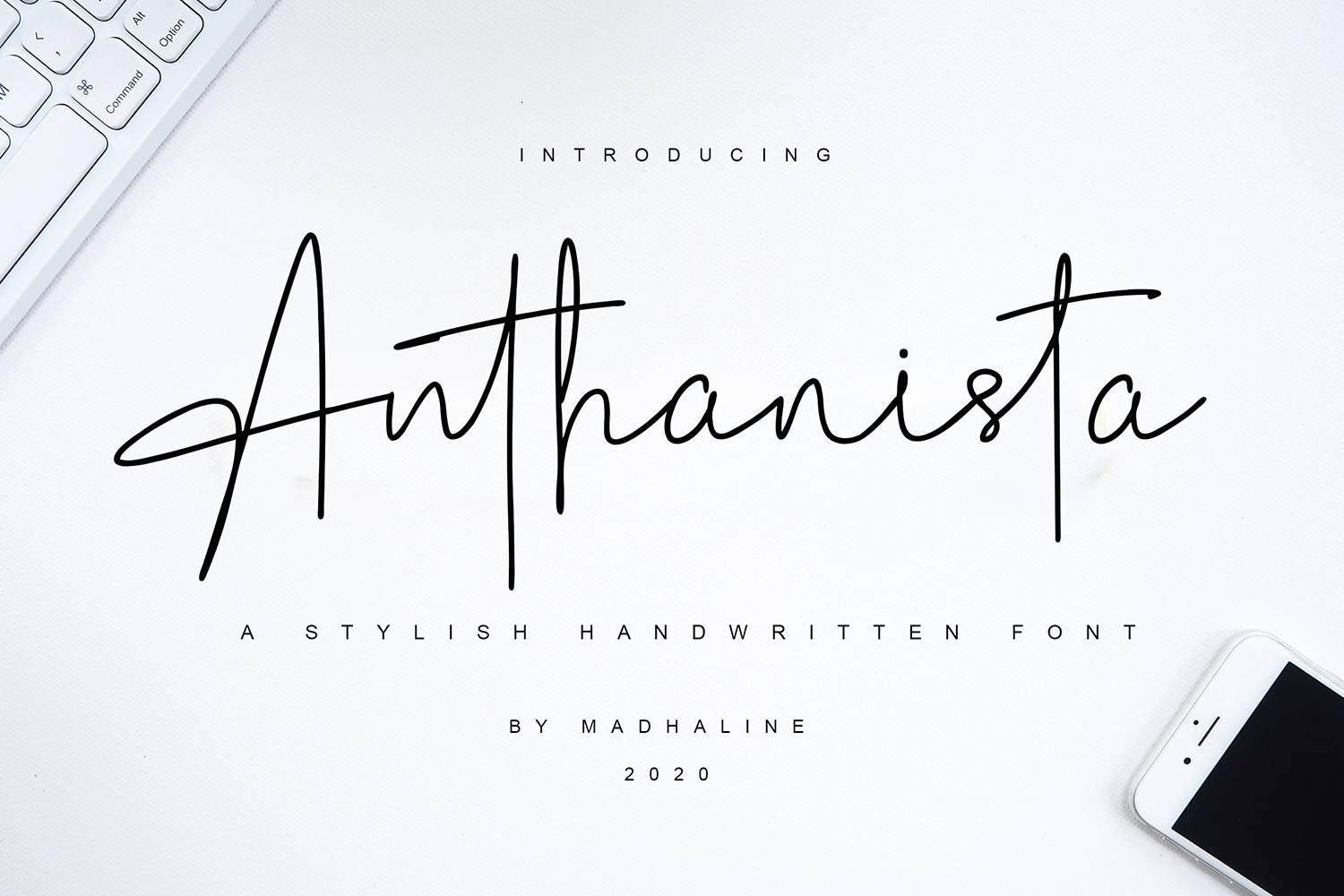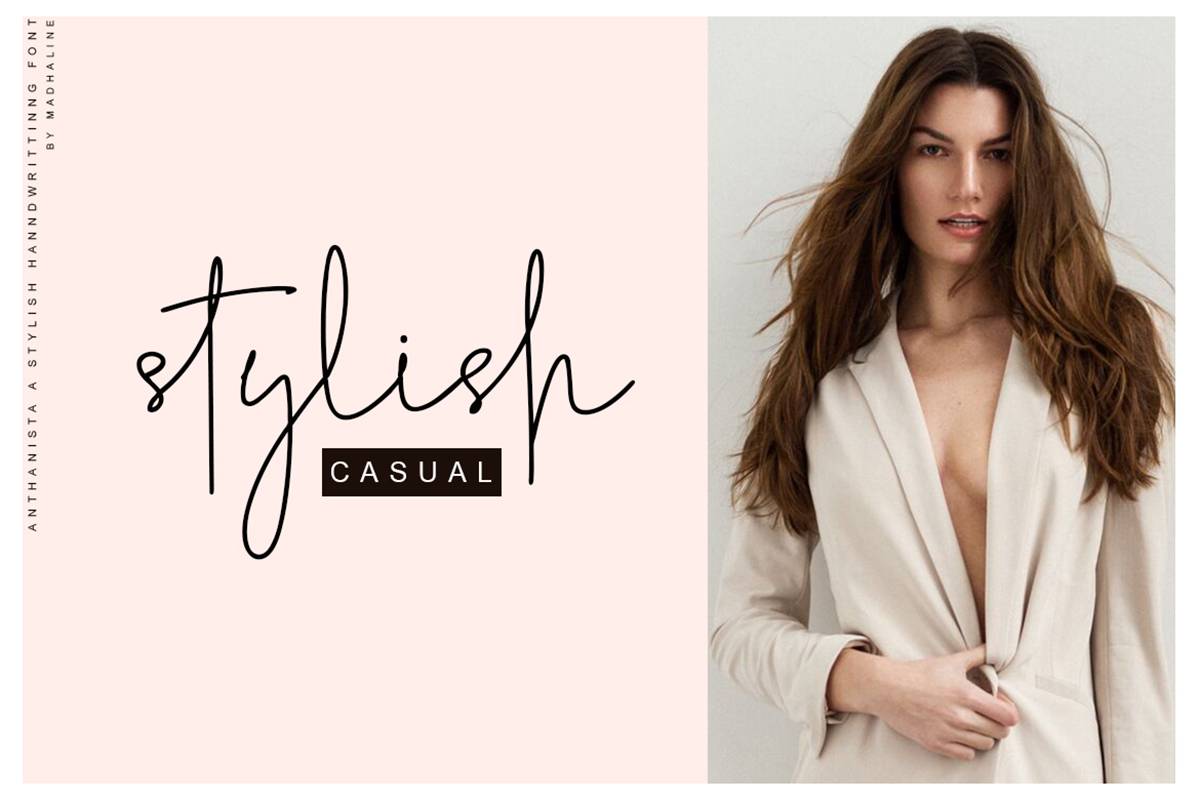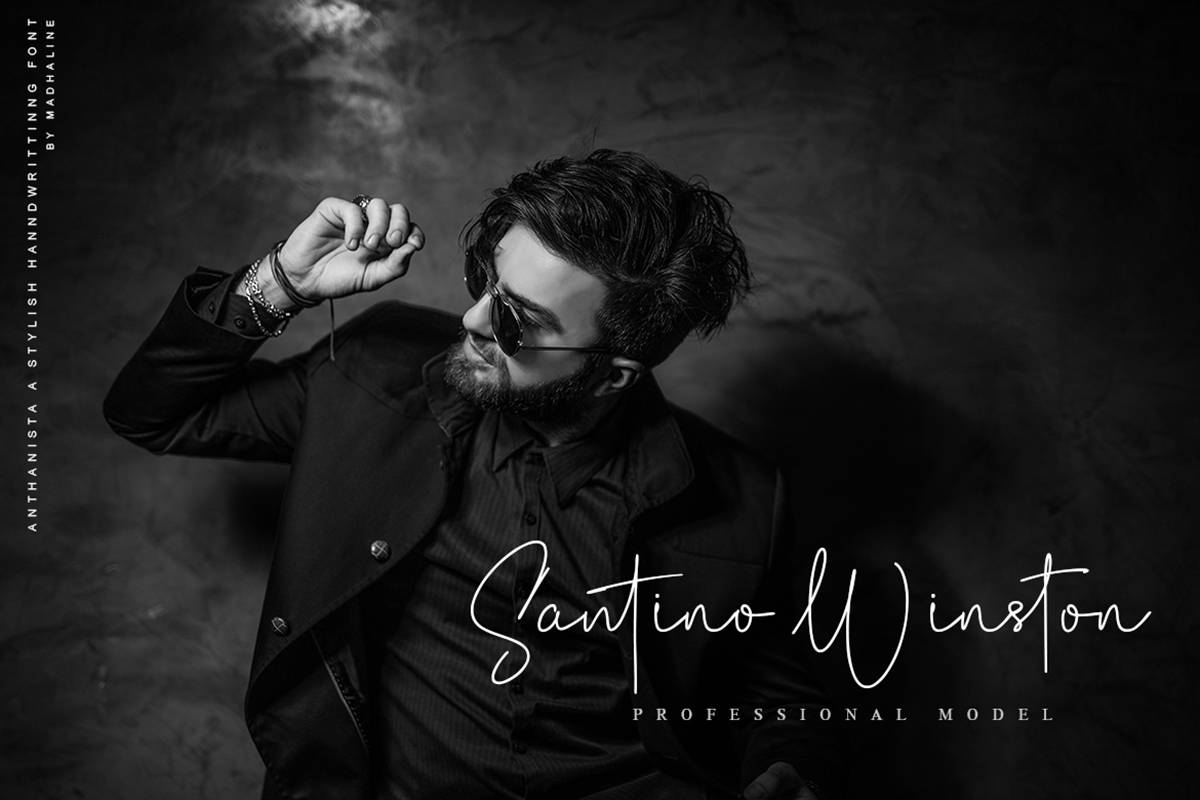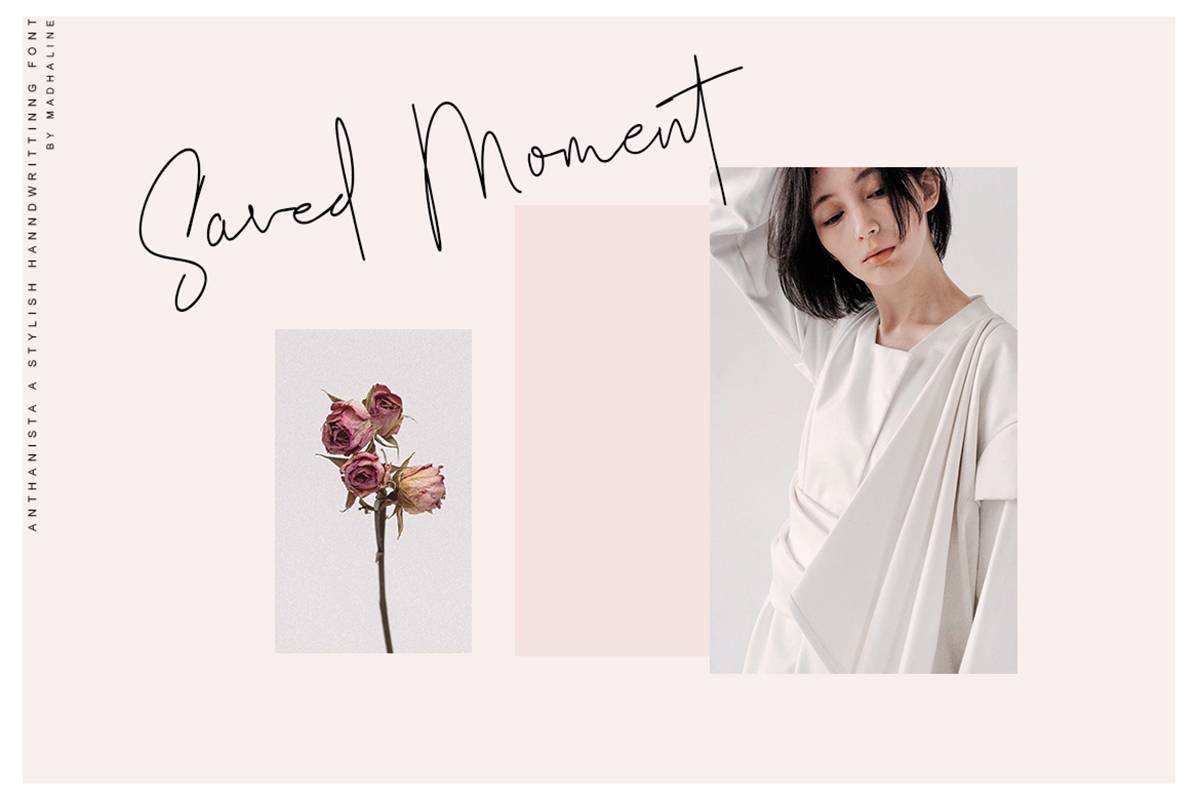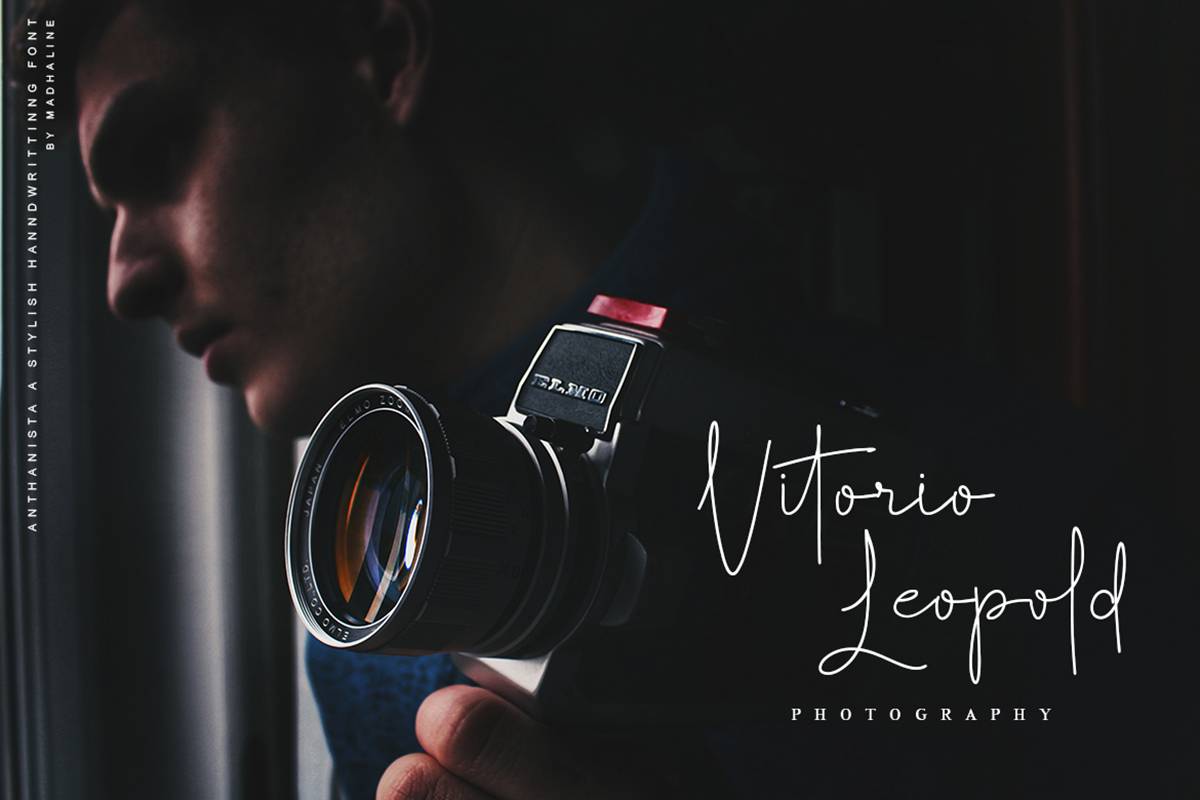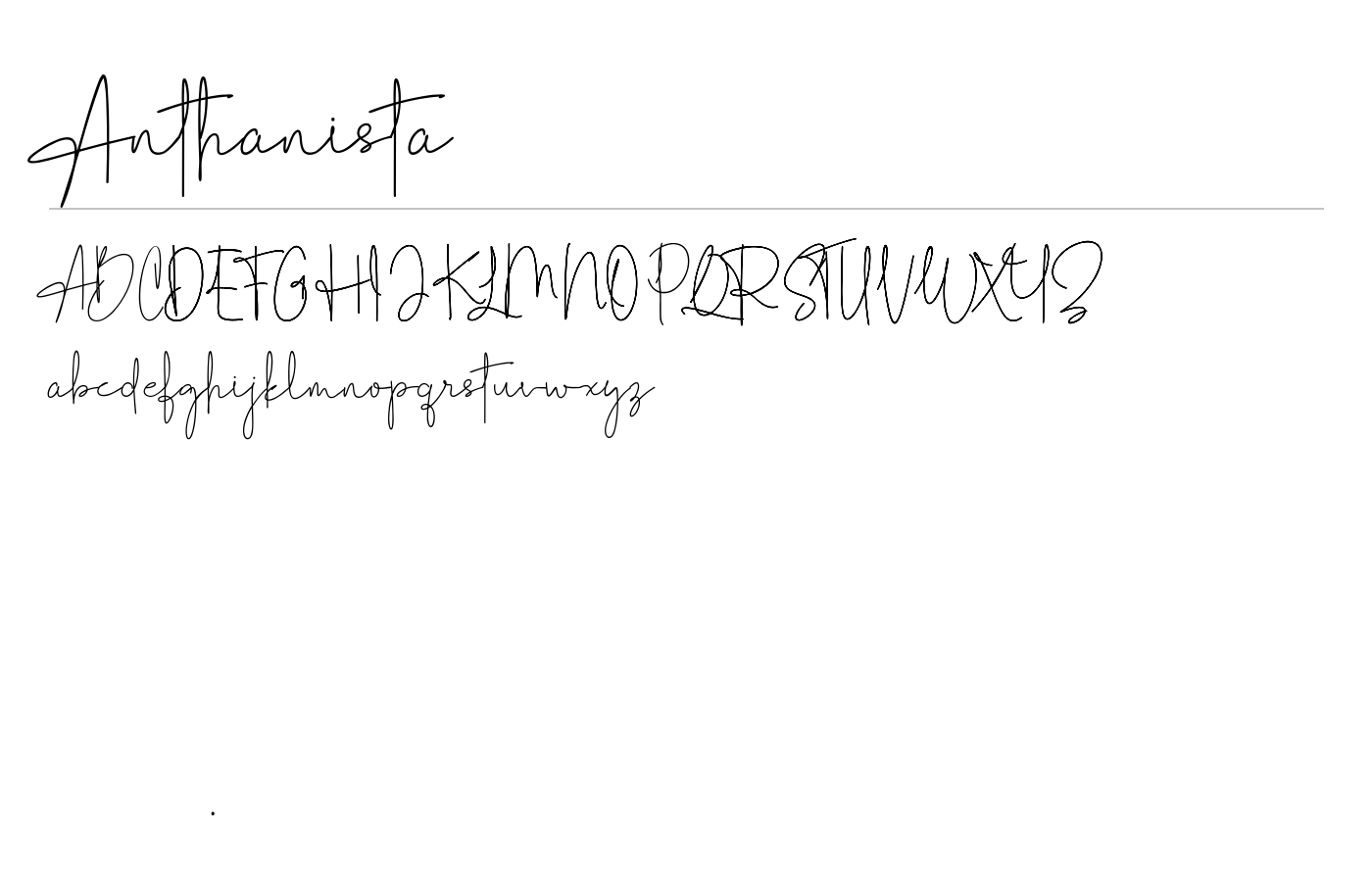
Anthanista is a delicate and playful handwritten script font that features tall, slender letterforms with a light weight and airy feel. Its whimsical and casual style, characterized by looping uppercase letters and flowing lowercase strokes, makes it perfect for creative projects that need a personal, elegant touch, such as invitations, branding, and social media graphics. This font brings a sense of charm and individuality, ideal for designs that want to stand out with a handmade, artistic vibe.
Anthanista Font
About Anthanista Font
| Font family | Anthanista Font |
| Release date | 2020-08-11 |
| Designer | Madhaline Studio |